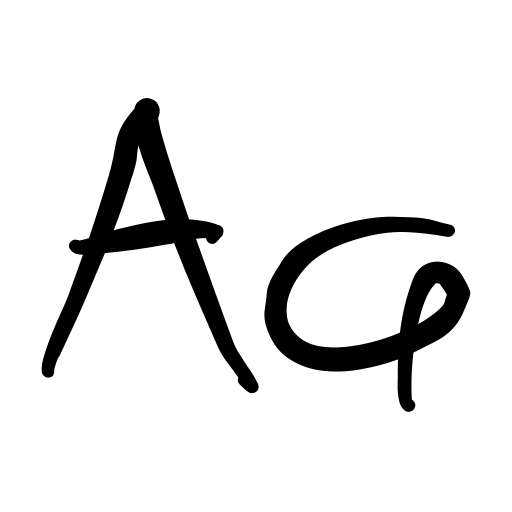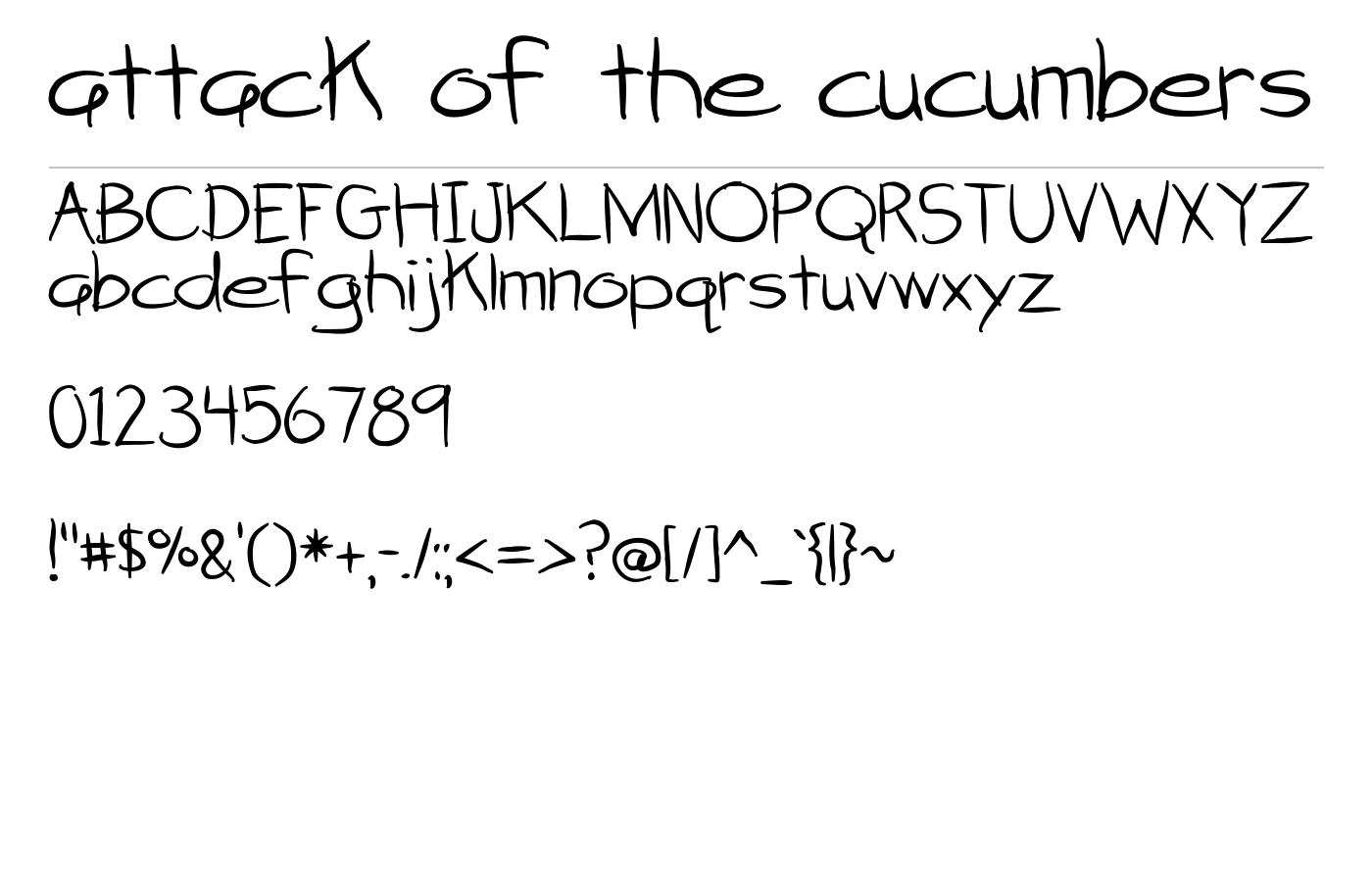
Attack of the Cucumbers is a playful, hand-drawn sans serif font with a casual and quirky vibe. It features irregular, slightly tall letterforms with thin strokes and a friendly, uneven style that adds character and a personal touch. This font is ideal for creative projects, informal branding, children's materials, and fun posters where a lively and approachable look is desired.
attack of the cucumbers Font
About attack of the cucumbers Font